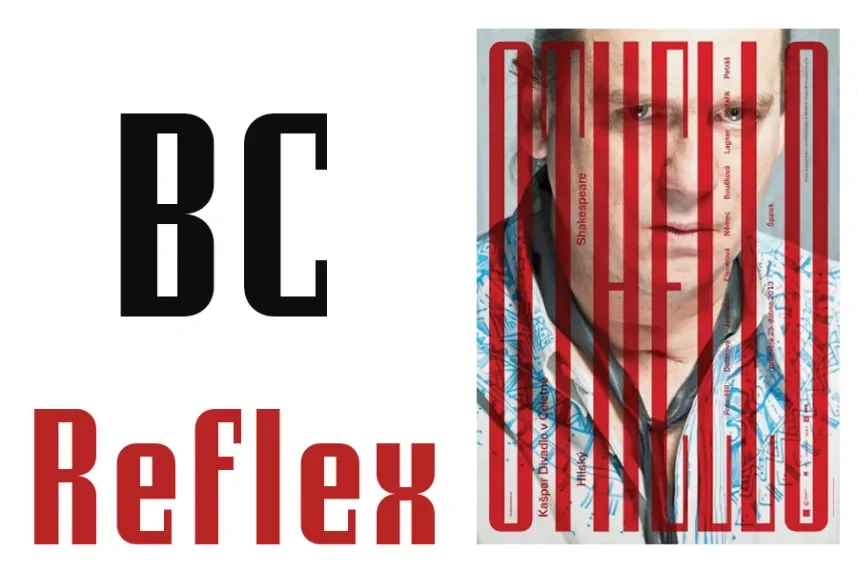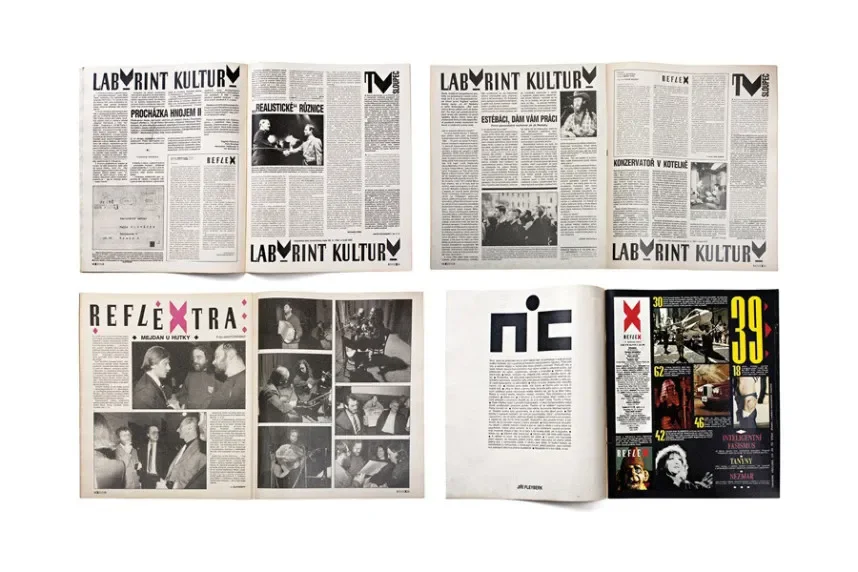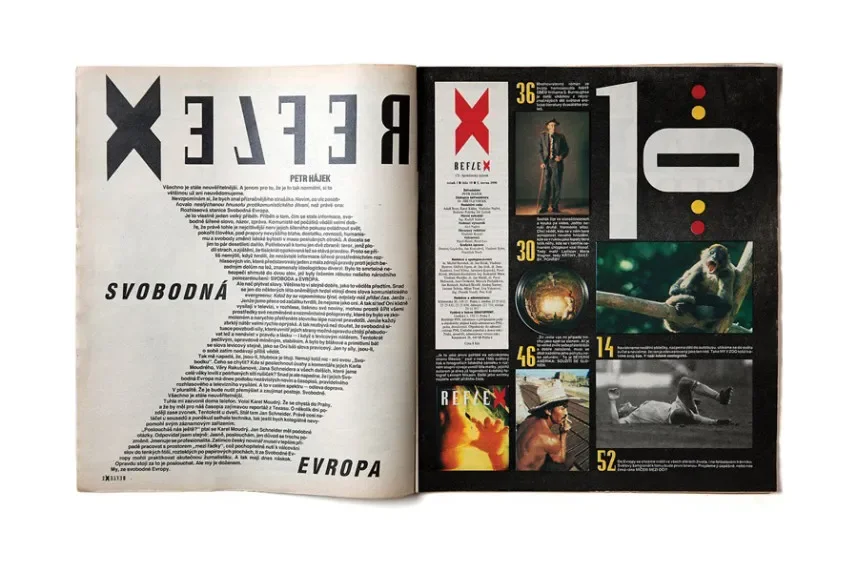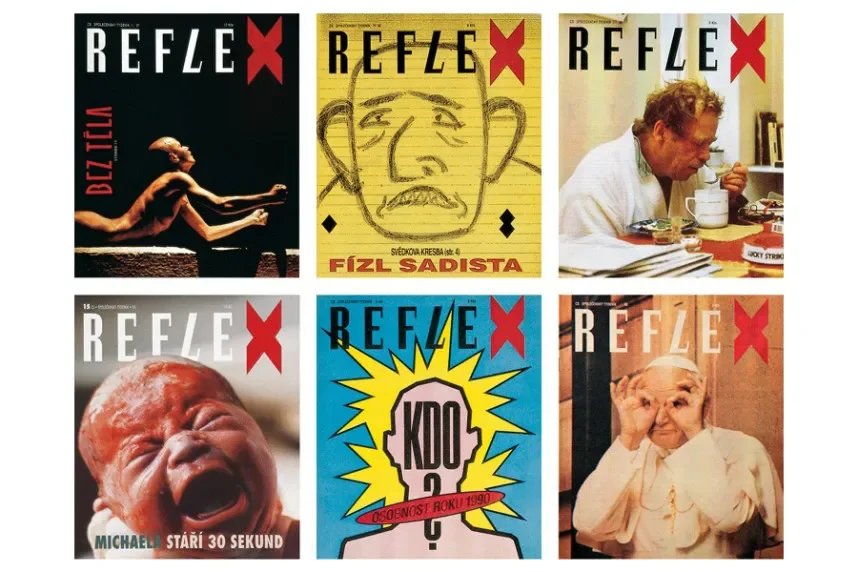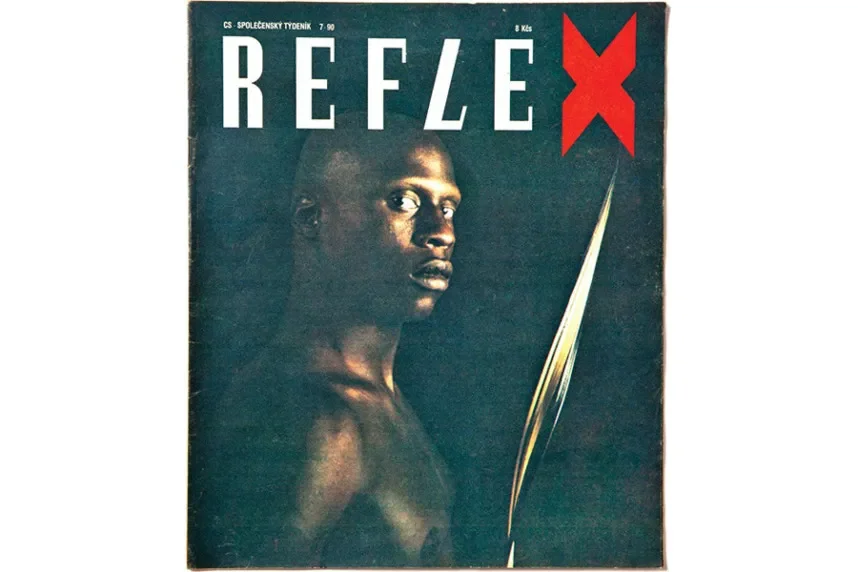
BC Reflex Font Family is a versatile sans-serif type system designed for professional layouts and consistent branding. Designers often need font families that scale across headings, body text, and UI components. BC Reflex addresses this with multiple weights and balanced proportions.
This font family belongs to the sans-serif category. Letterforms feature open counters, uniform stroke width, and clean geometry. These traits improve readability across print and digital platforms. The family structure supports typographic hierarchy.
BC Reflex works well for branding systems, web design, UI design, editorial layouts, and corporate materials. Designers often pair it with a serif or display font for emphasis.